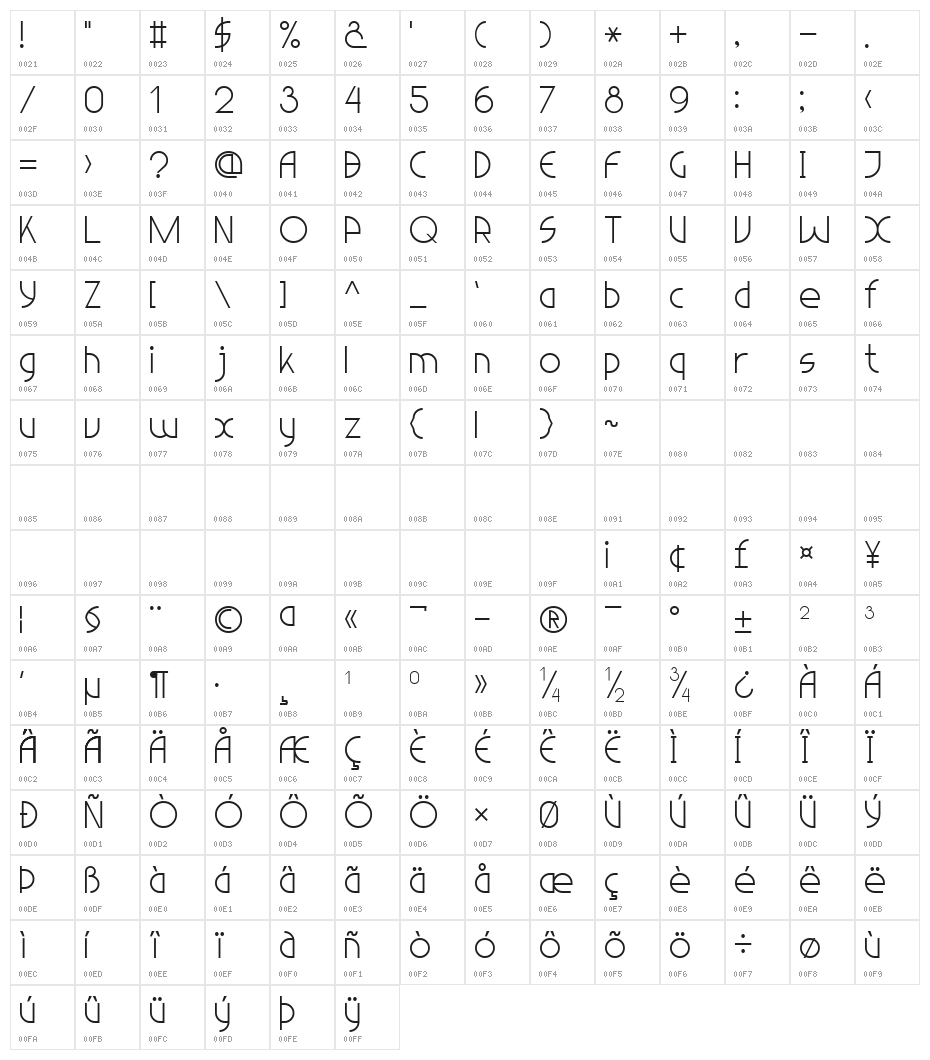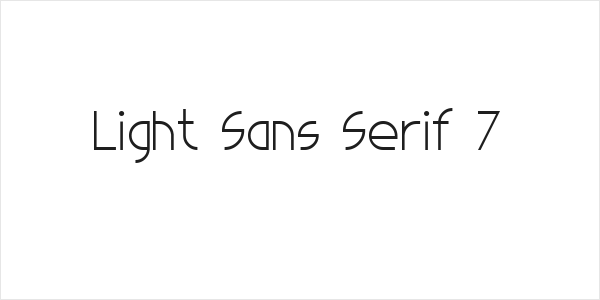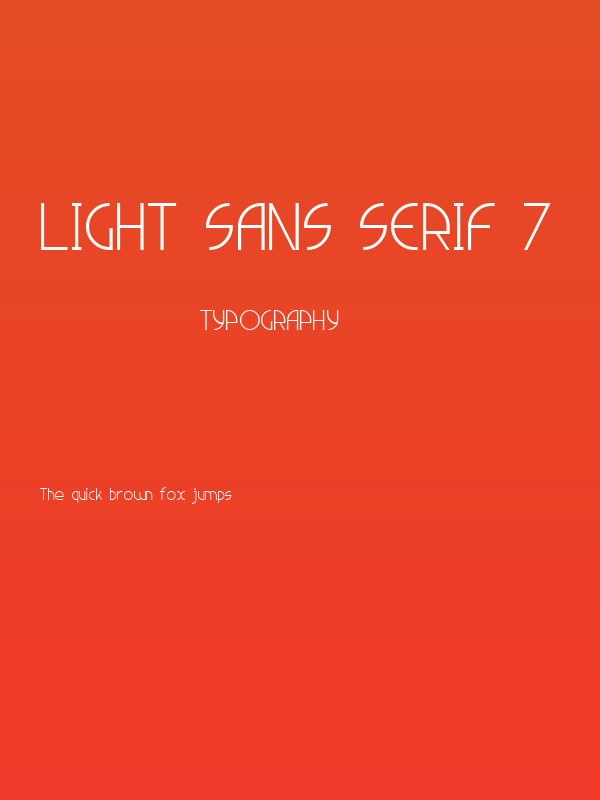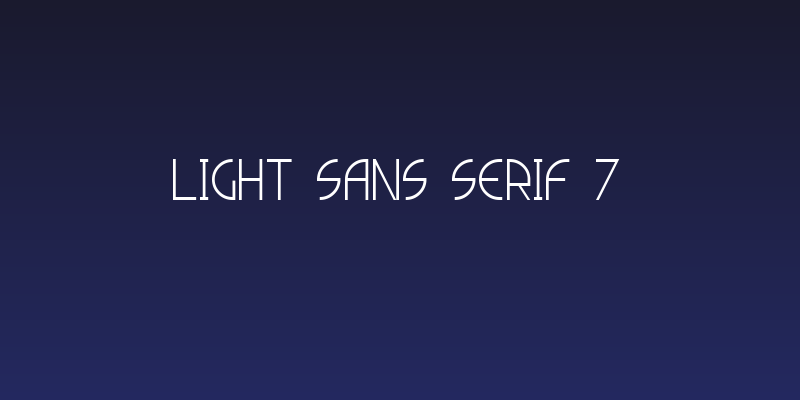
Light Sans Serif 7 Font
Light Sans Serif 7 Description
This font features a clean and modern sans-serif design with a light weight, offering a sleek and minimalist appearance. The characters are crafted with geometric precision, showcasing rounded edges and uniform stroke widths. The uppercase letters are tall and elegant, while the lowercase letters maintain a consistent height, contributing to a harmonious and balanced look. The numerals are clear and easily distinguishable, making them suitable for various applications. Special characters are included, maintaining the font's overall aesthetic. This font's simplicity and clarity make it versatile for both digital and print media.